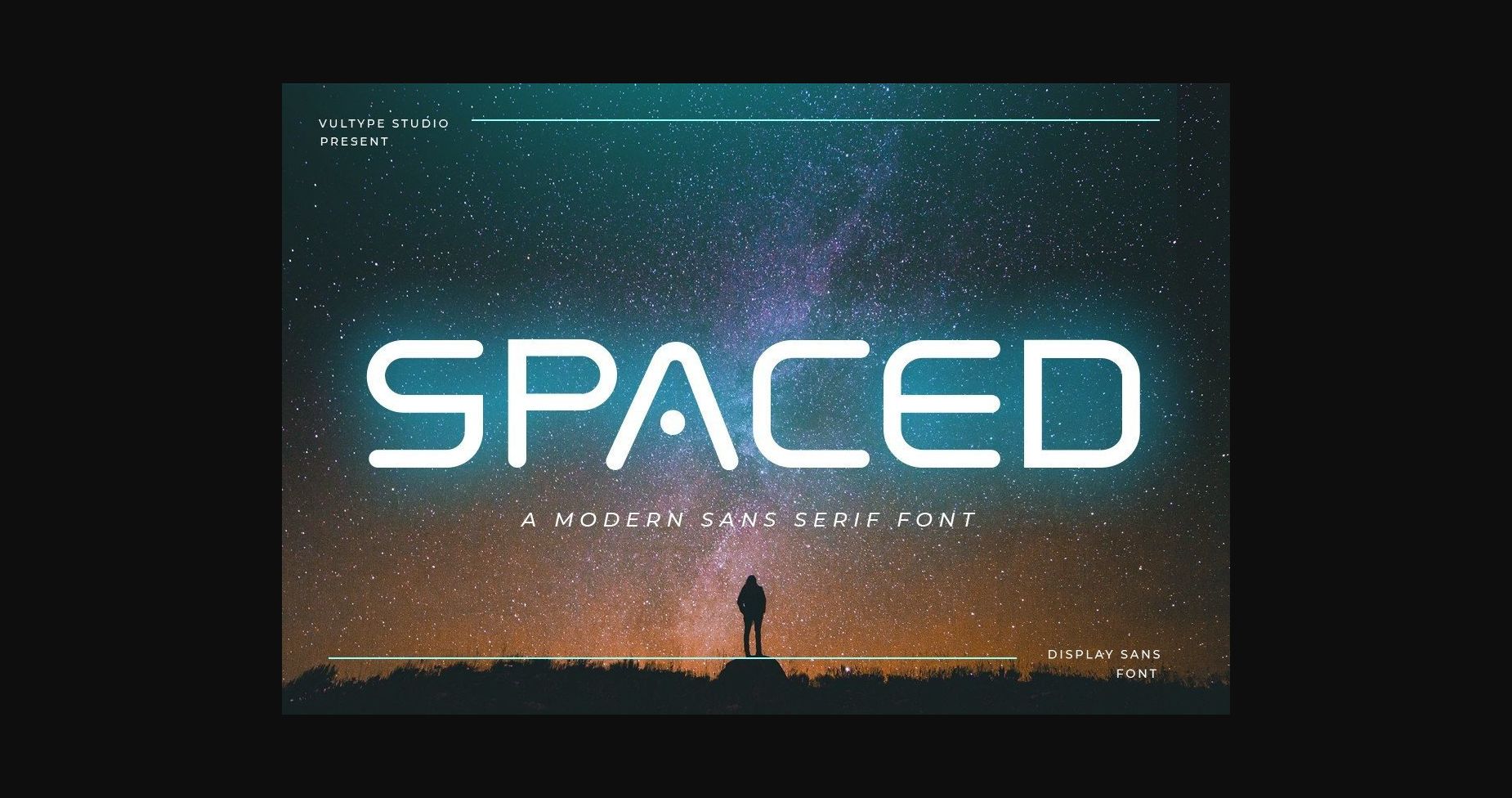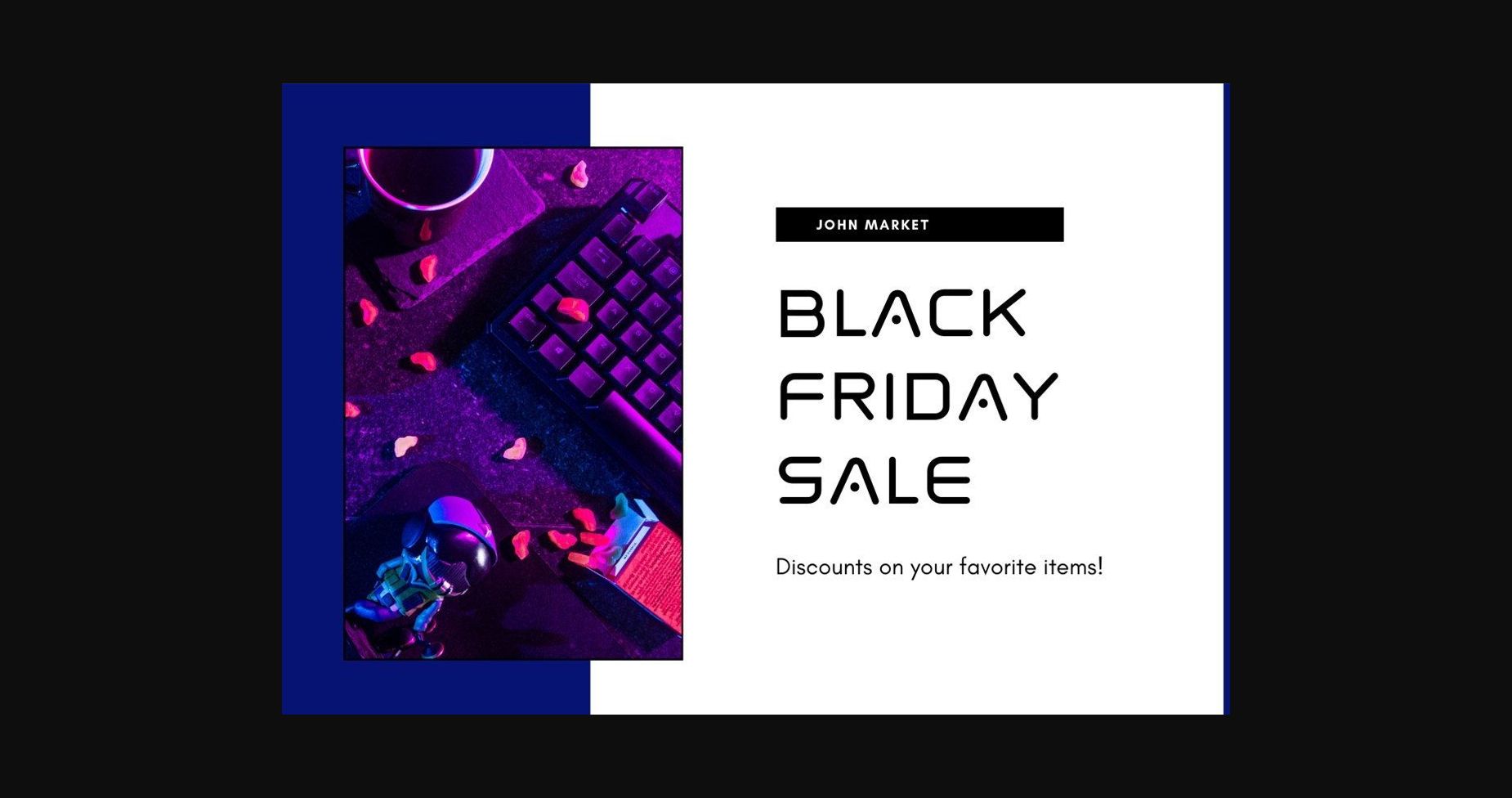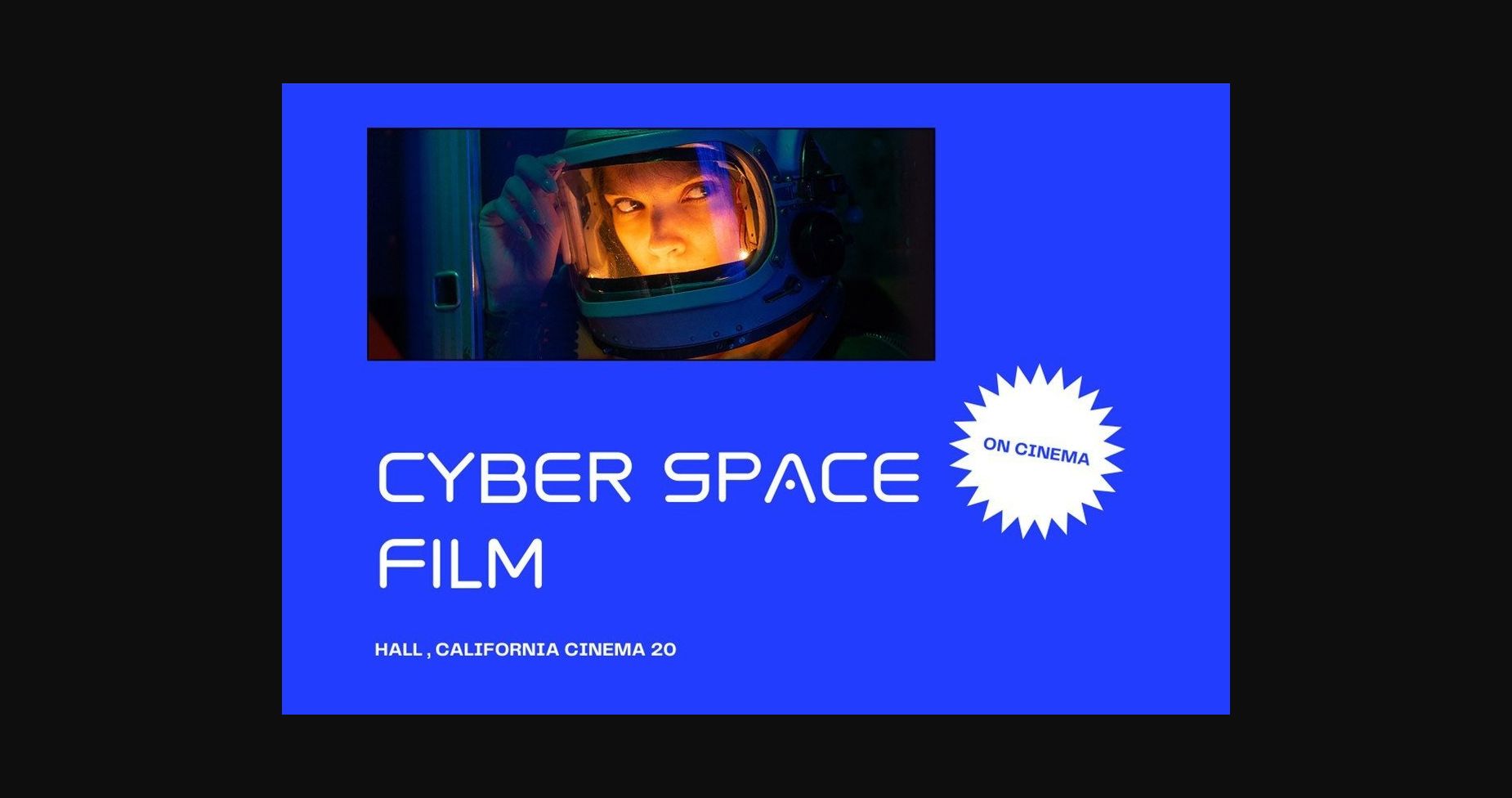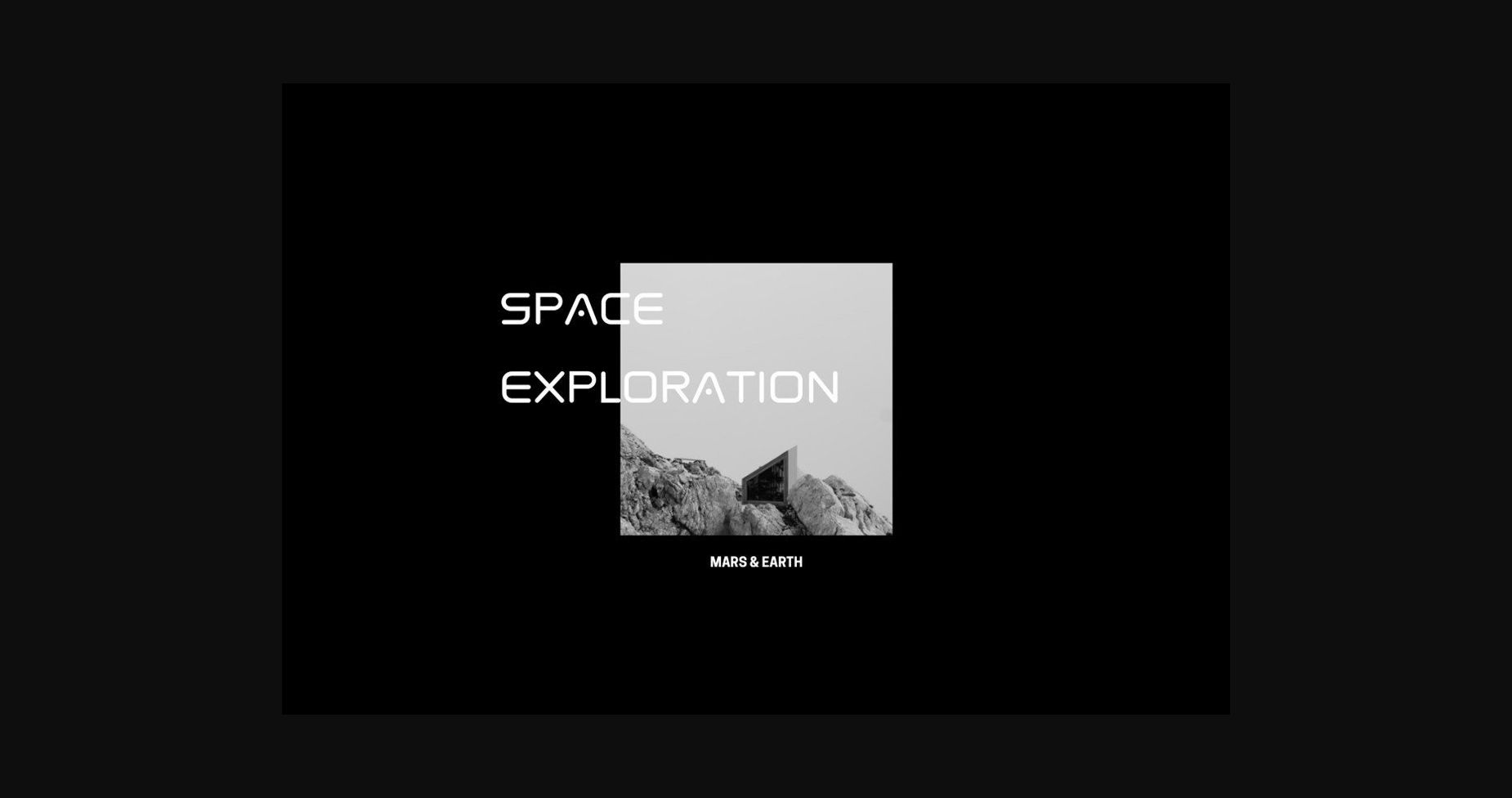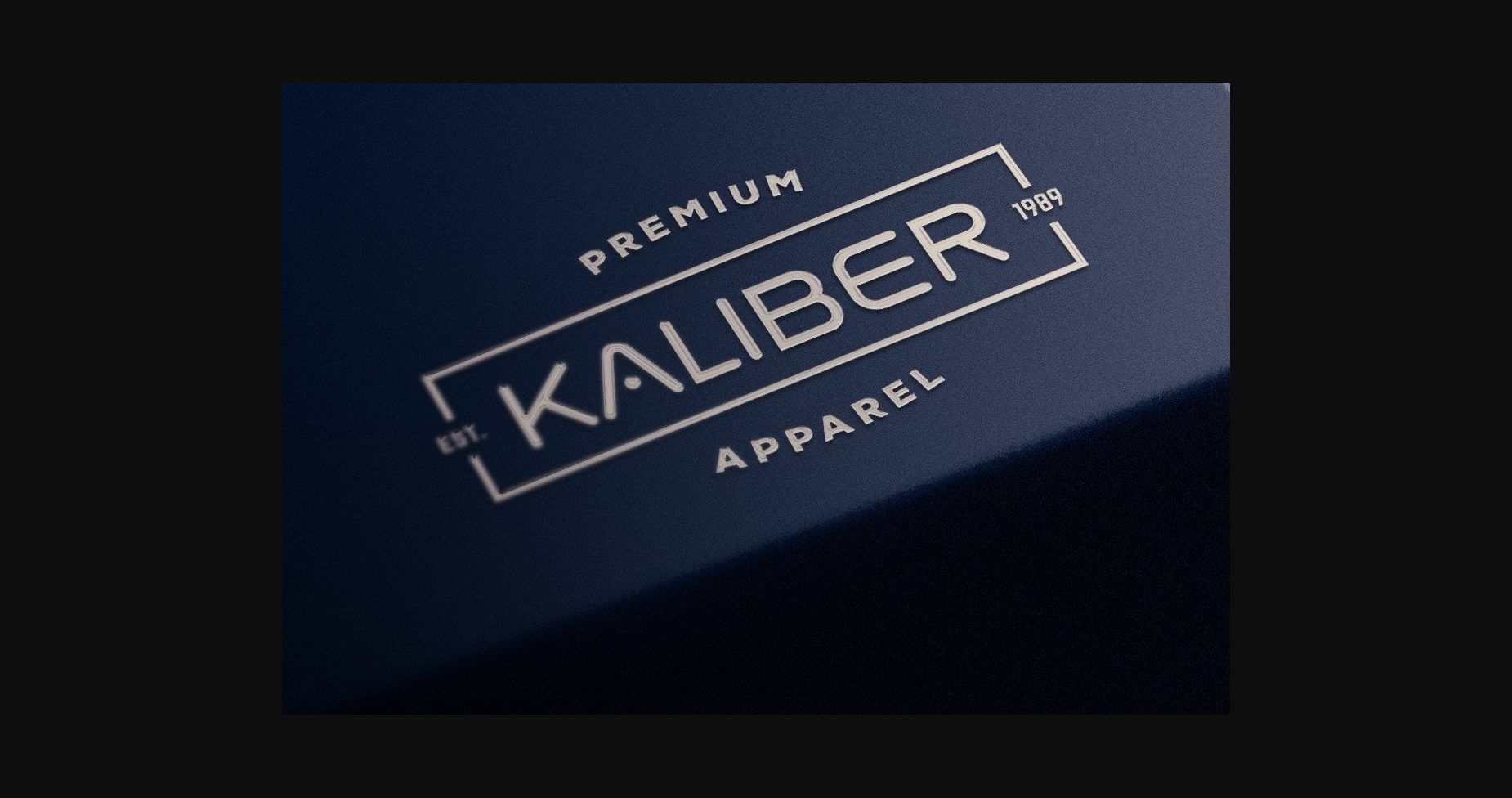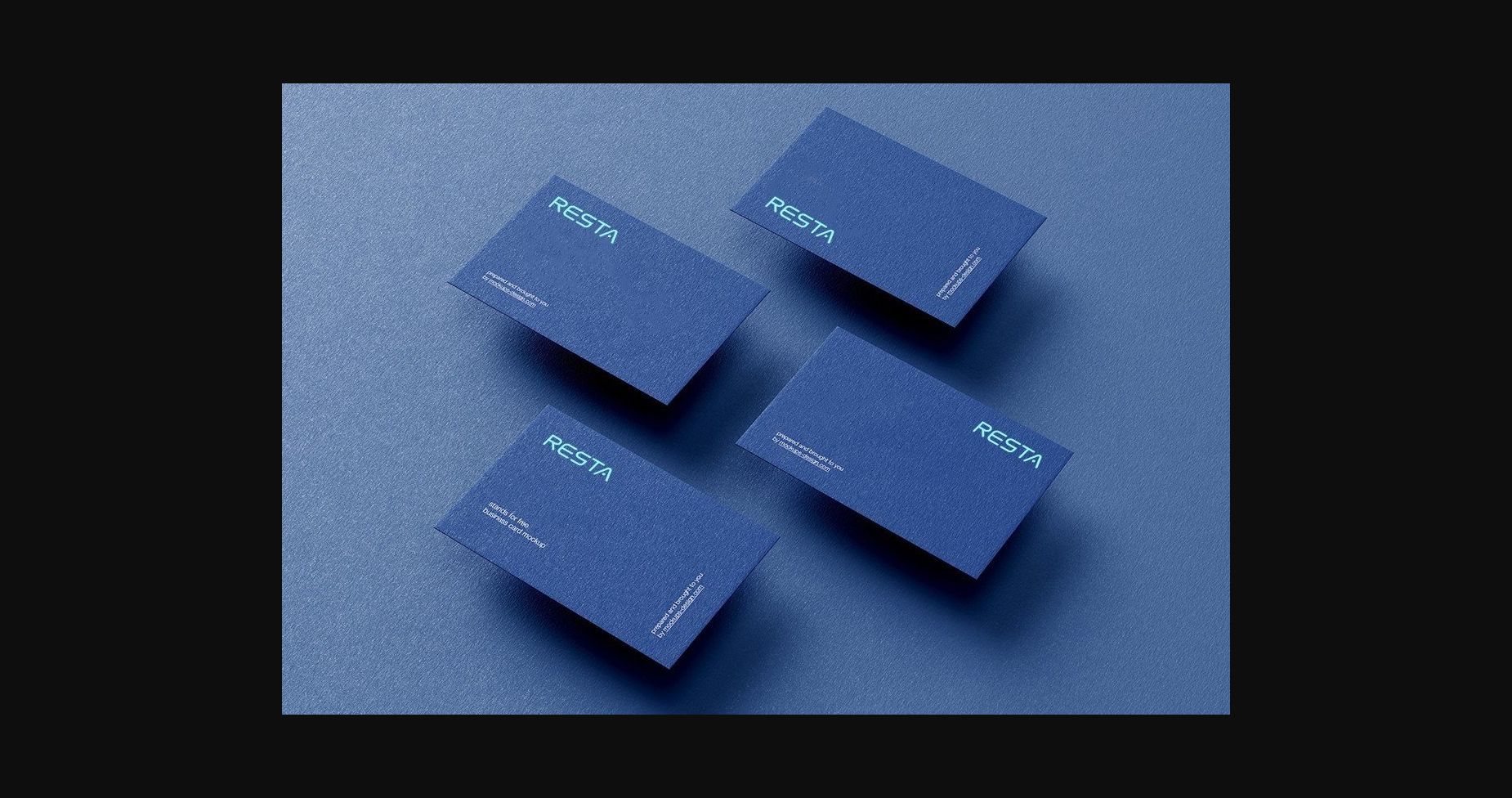
About Spaced Font
Introducing, Spaced, a futuristic logo font!
Spaced is a sans-based font with unique lowercase that will make your design look futuristic and modern. You can use this font for any purpose, especially to make logotypes.
You can mix and match the uppercase and lowercase to make your logo more readable. This font also has special alternates that will make your design stand out!
Spaced is a sans-based font with unique lowercase that will make your design look futuristic and modern. You can use this font for any purpose, especially to make logotypes.
You can mix and match the uppercase and lowercase to make your logo more readable. This font also has special alternates that will make your design stand out!